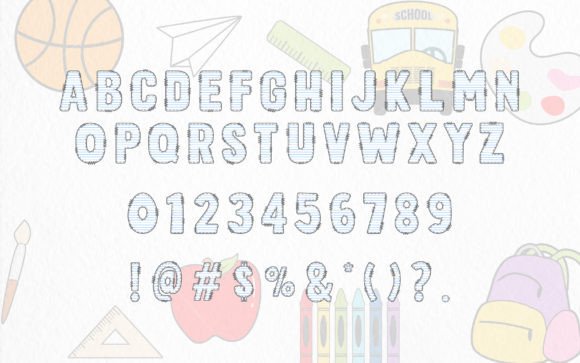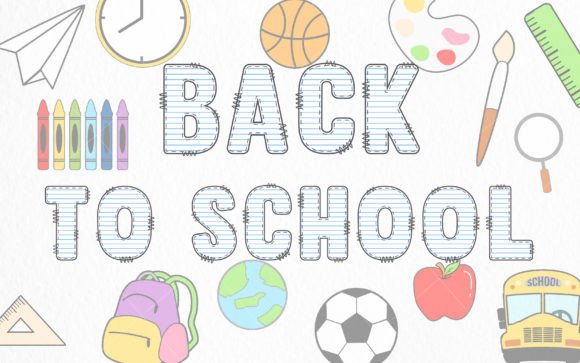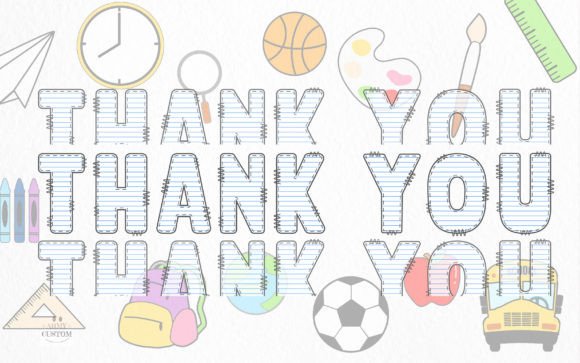
Introduction to Paper Army Font
Paper Army Alphabet is a cool and useful color font.
Add it to your creative projects and you will definitely make an impact Perfect for your arts and crafts, scrapbooking, stationery, cards, party invitations, blog banners and backgrounds, wall art, and all your products.